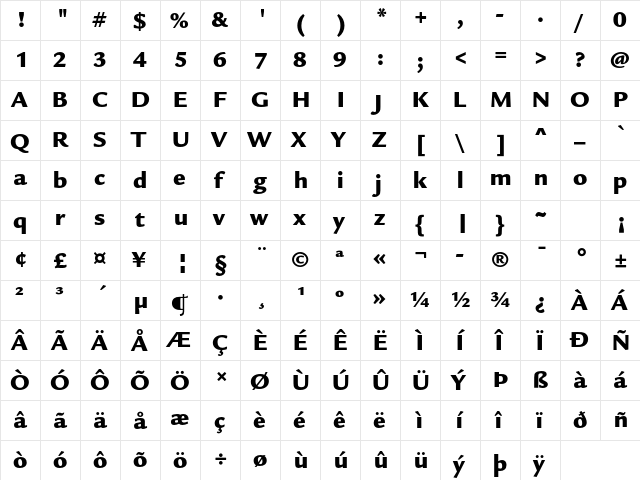
Legacy Sans ITC Std Ultra
| Designer | Ronald Arnholm |
Design Context for Legacy Sans ITC Std Typeface
Legacy Sans ITC Std offers clean, dependable letterforms without strong stylistic allegiance, making it a practical choice for designers who need flexibility.